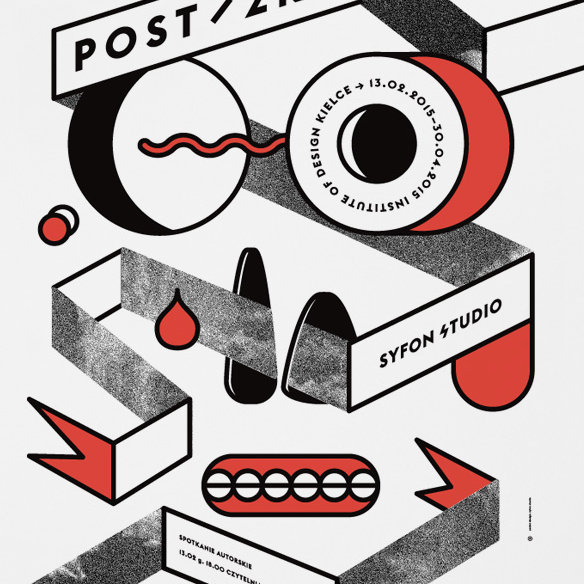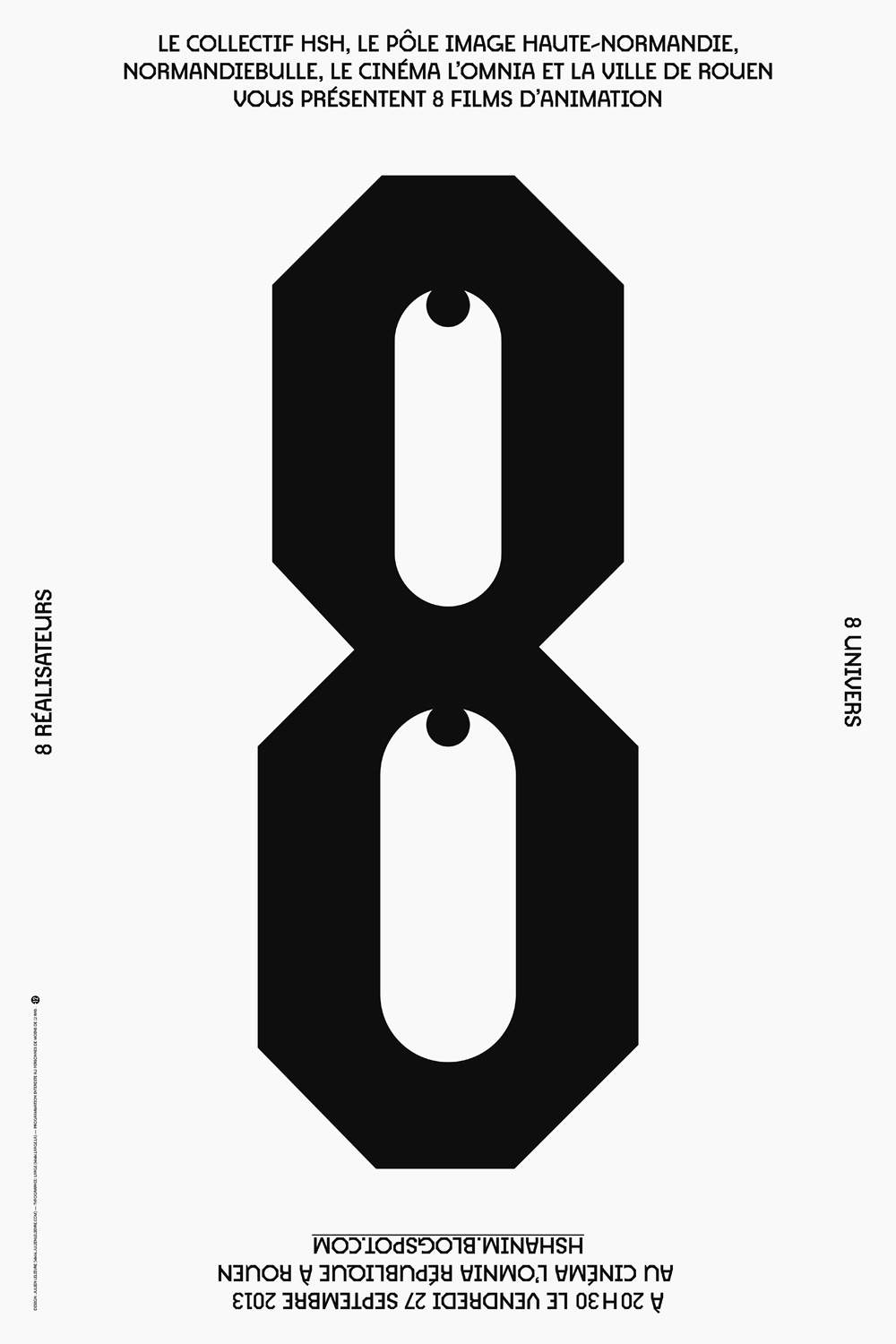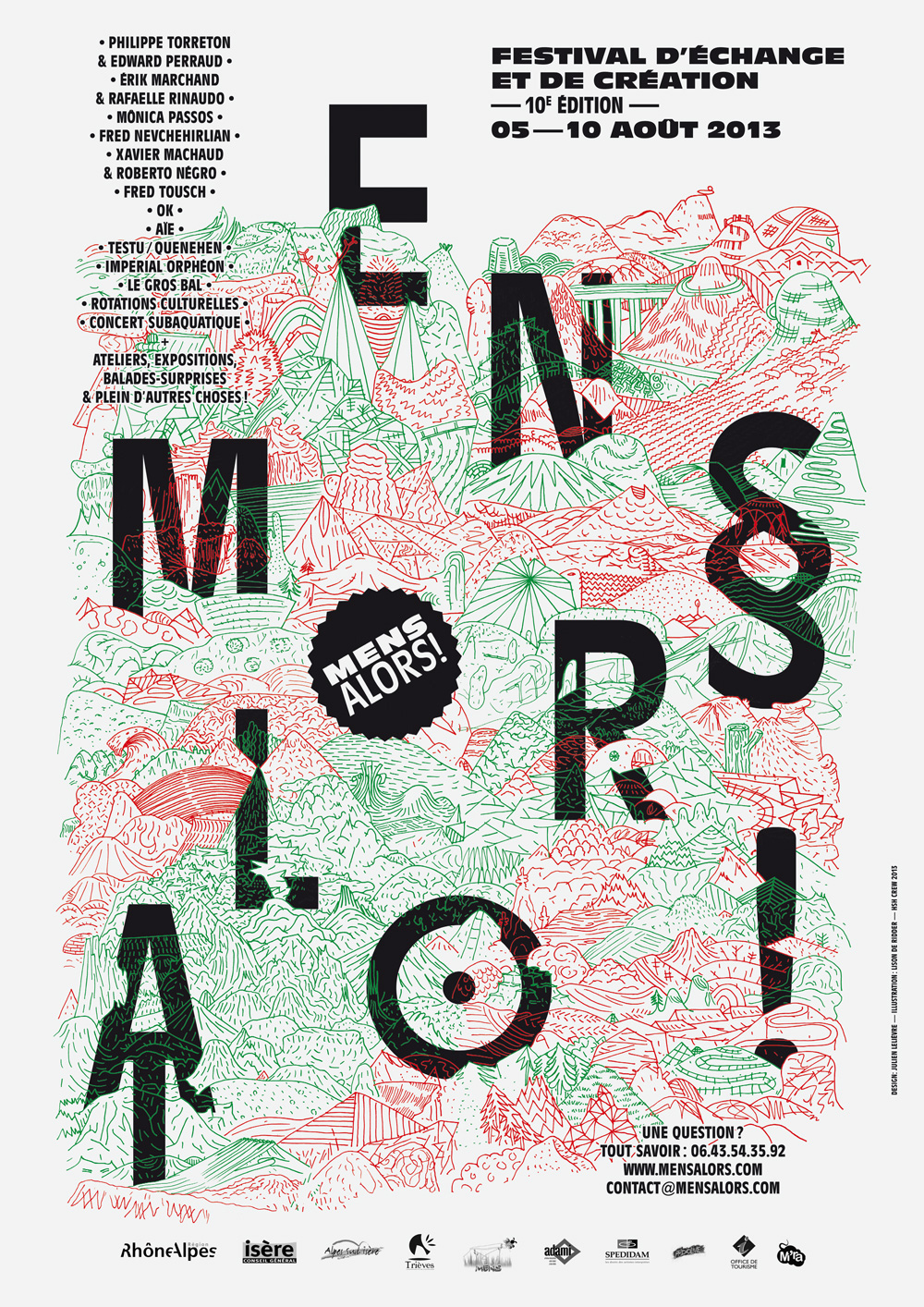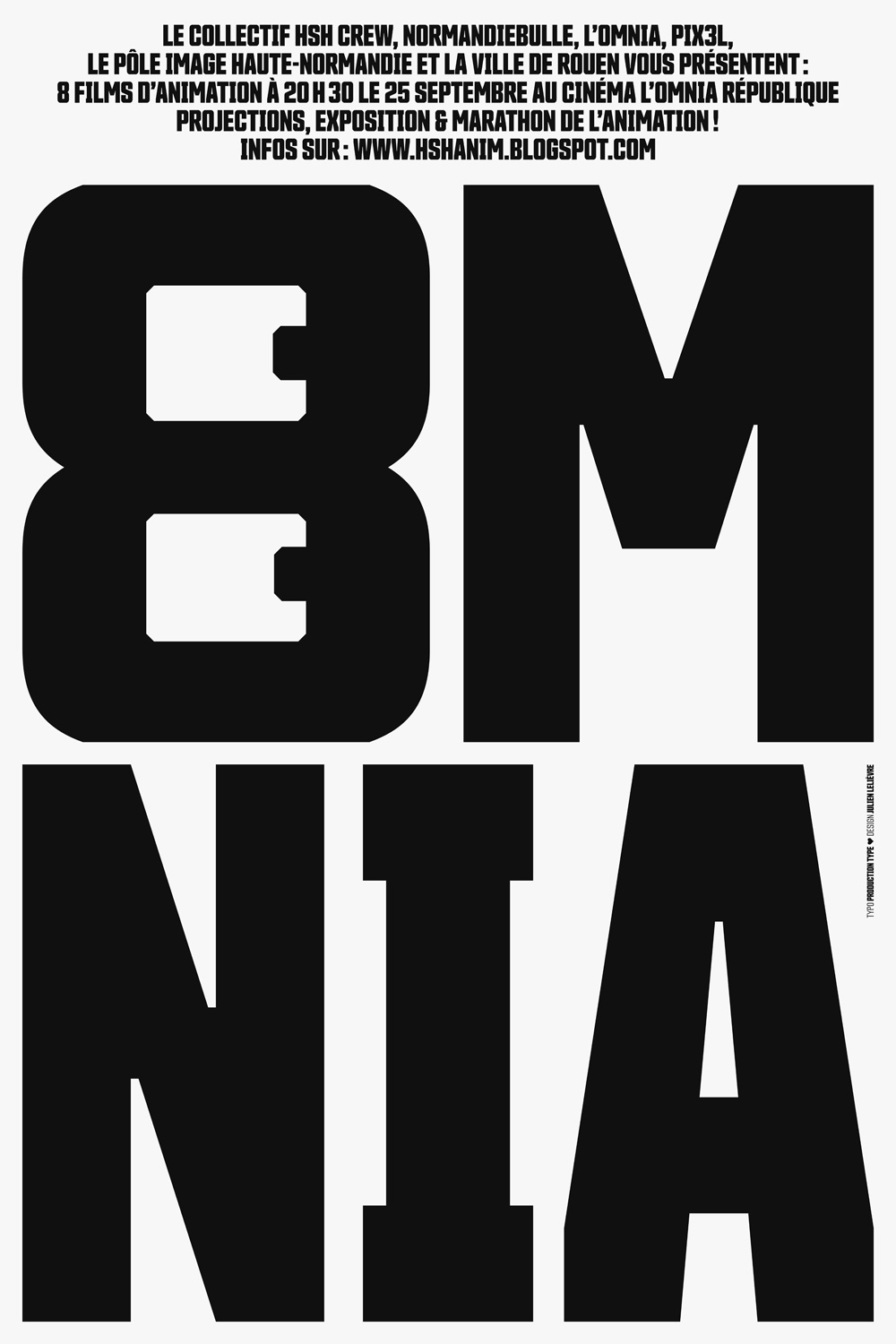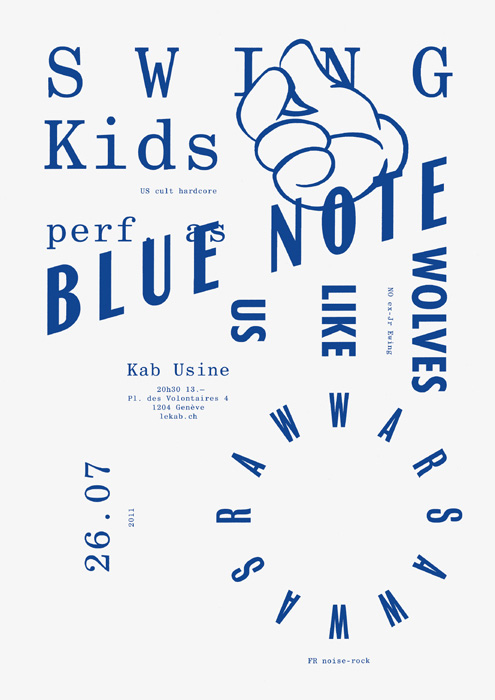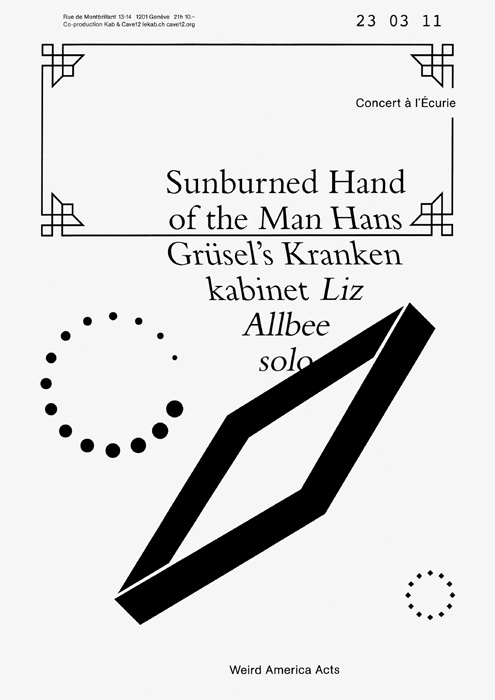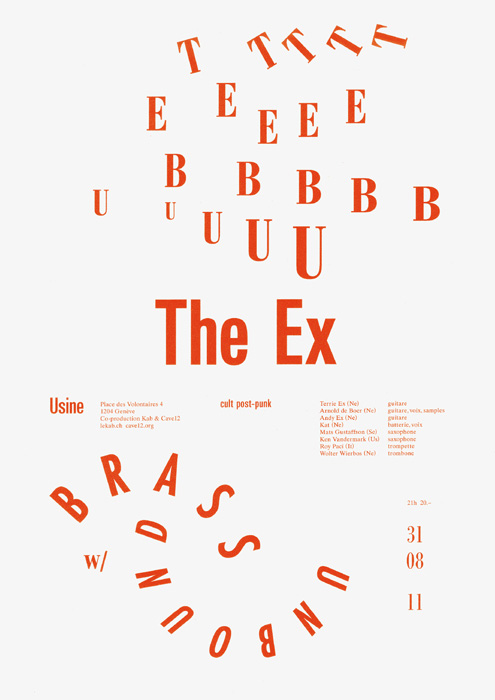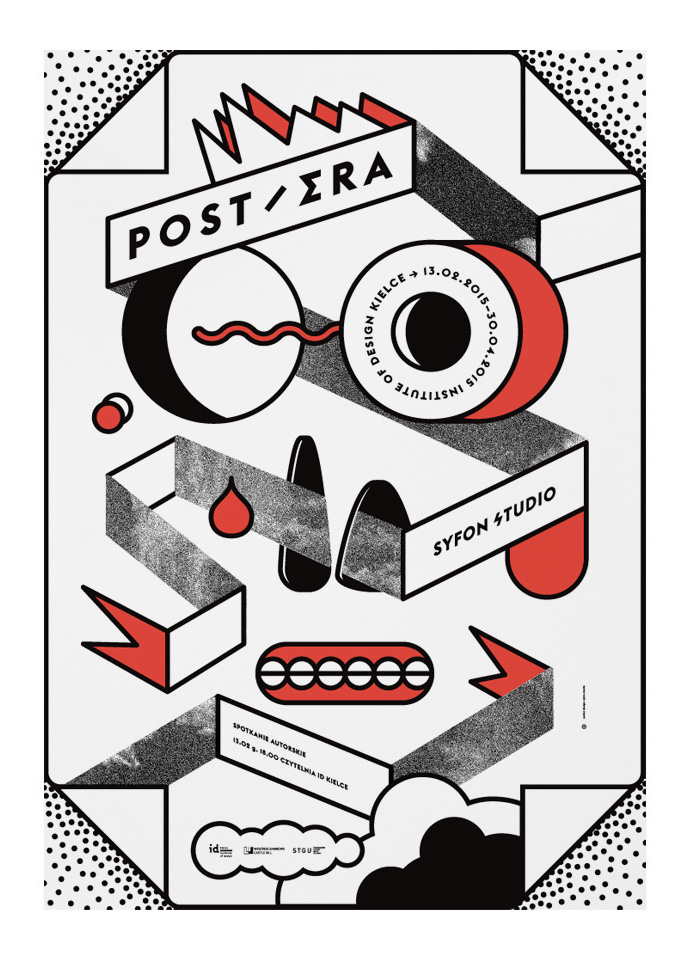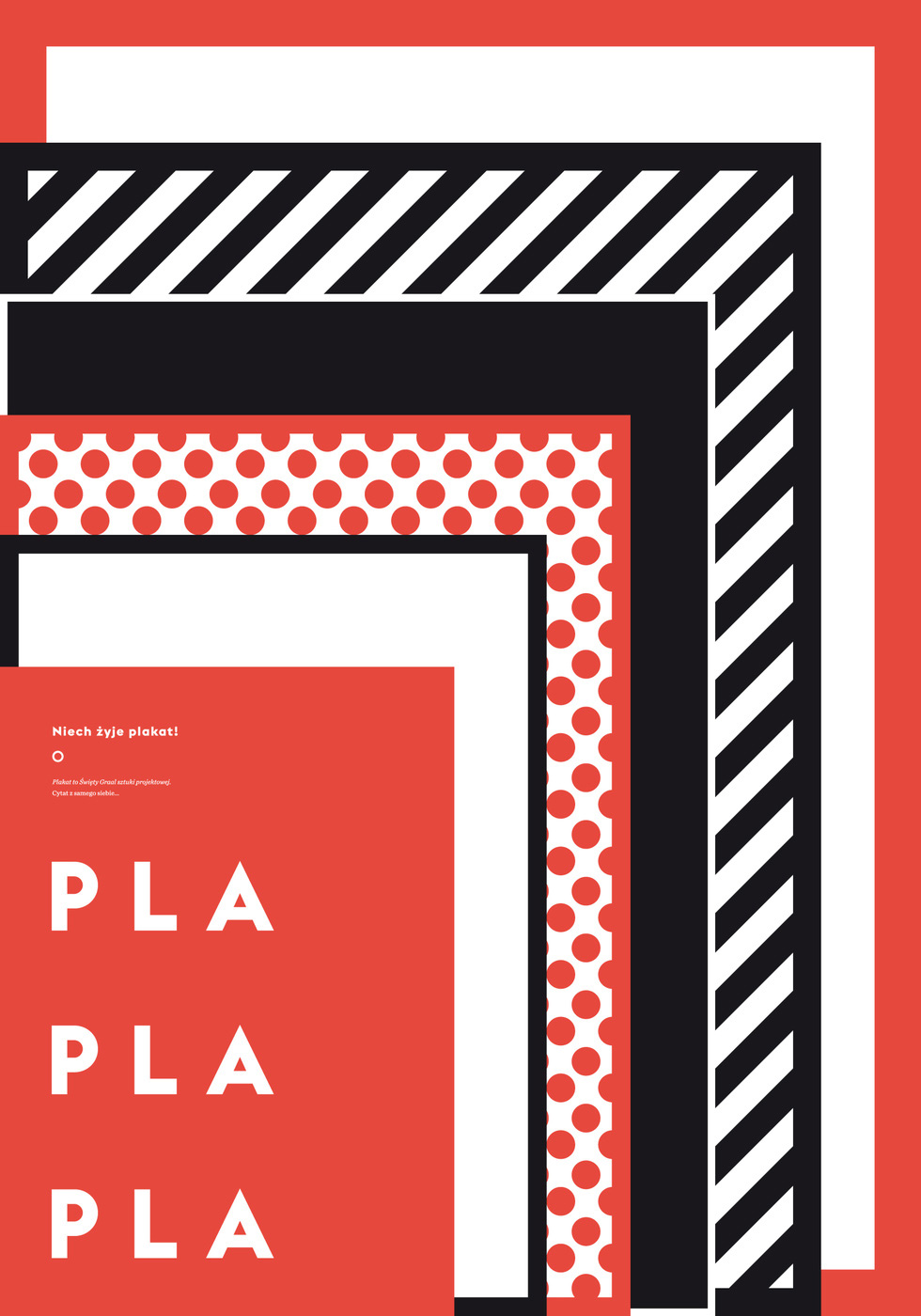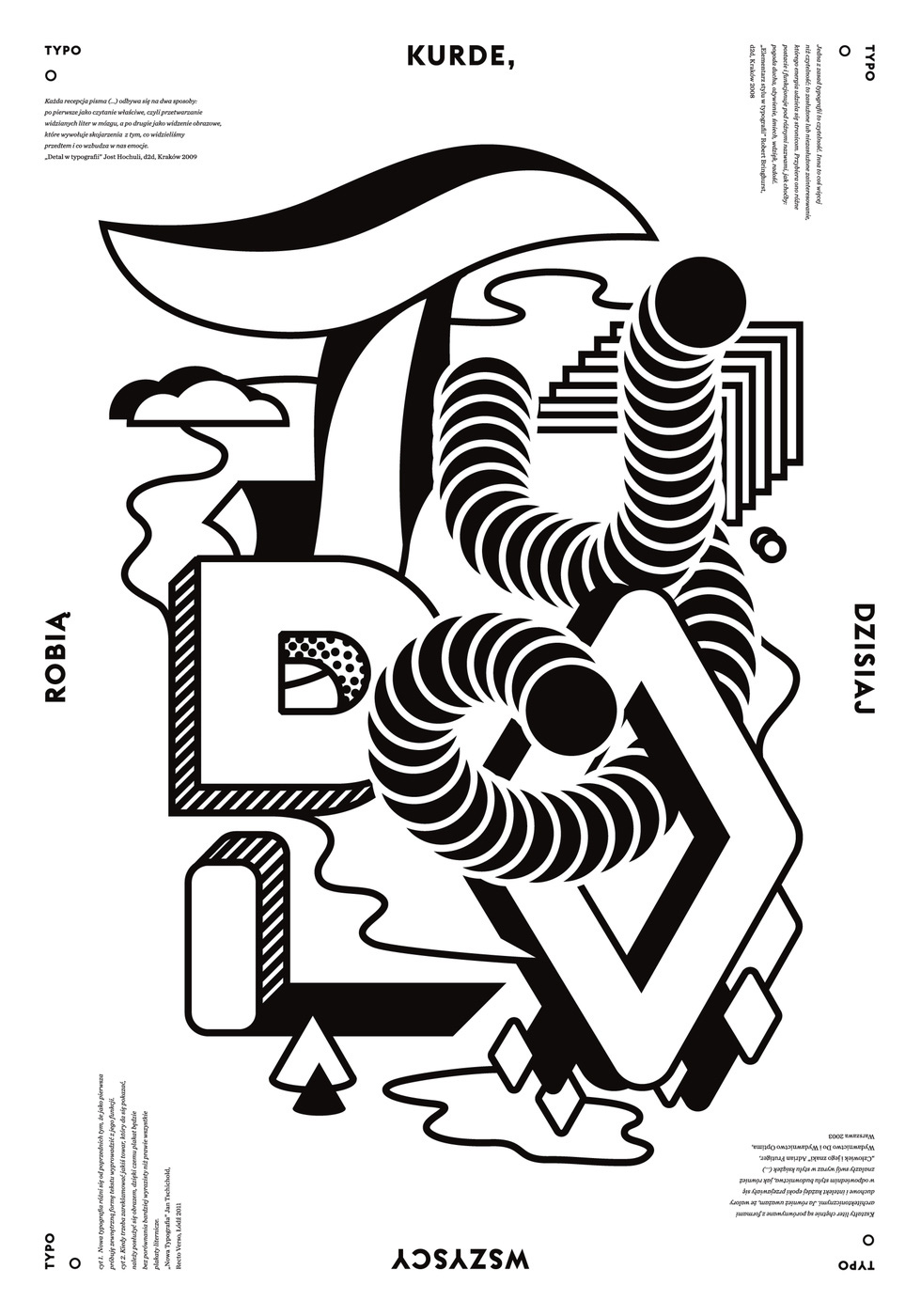
3x3. Three fine examples of contemporary European typography
Oh, the world. As we search the Internet to find and bring into the limelight some of Europe’s emerging creatives that push the envelope, we find lots of treasures hidden behind those promiscuous id addresses. Therefore we decided to pick just three of them for a fresh and totally inspiring post dedicated to those of you who can’t get enough grids, spacing and kerning. Kick off you weekend with these three design studios from across the continent. Be our guest.
Hailing from France, Julien Lelièvre is a man of many different talents. A photographer, a graphic designer, a man who want to share his craft with other under a common hub. A graduate of Duperré School of Applied Arts, Lelièvre has worked under the guidance of Pierre Bernard at L’Atelier de création graphique, working on the branding of the prominent Centre Pompidou, Julien Lelièvre founded the Club des Chevreuils in 2005 with five other designers. A man who works better with others he founded the Atelier collective in 2012. His portfolio is full of surprises as he explores a very sur-mesure typography spirit.
Founded by Ursula Janowska and Filip Tofil, a pair who met at the Academy of Fine Arts in Warsaw, Syfon studio proves that if you want to make impressive posters all you need is experimental typography, strong color palette and some eye-catching motif. Throw them in the mix and what you have is impressive typographic works where traditional techniques are mixed with contemporary spirit at hand. In this way, the viewer’s attention is secured.
Since 2009 David Mamie and Nicola Todeschini have shared the same roof working on both individual and common projects in a shared studio. Regular attendees of 'Le KAB's alternative culture hub for years they are responsible for the company’s communicative experiments. Working on a tight budget they created individual posters with unique characters by A1 format silk-screen prints to emphasize the diversity of the artists involved. Free of restrictions and constraints, the Swiss creative duo created a highly recognizable visual language whose vocabulary consists of striking typography, dynamic sequencing and a monochrome color palette.